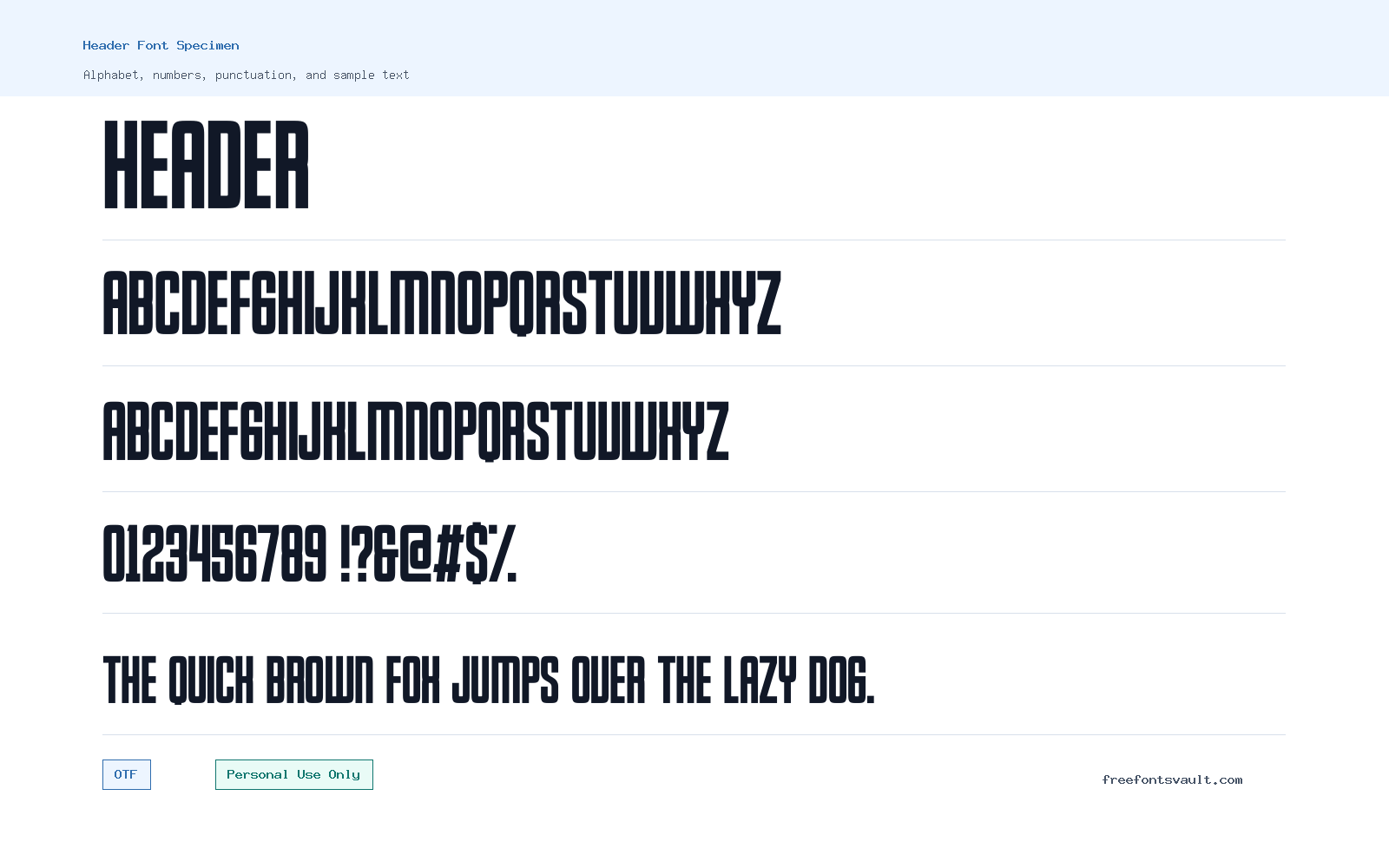
Header
- Designer Muhammad Rizki Utomo
Header font.
Header is a sans serif display font made for short, attention-grabbing text. Its name says exactly where it fits best: titles, headings, poster lines, logo drafts, and other places where the words need to stand apart from body copy.
About Header Font
Because Header is a sans serif and the style is presented around headline use, it is best treated as a display face rather than a long-reading text font. Use the preview box to test the exact words you plan to design with, especially if your project depends on tight spacing, all-caps wording, numbers, punctuation, or a short brand name. Display fonts can look strong in one word and feel crowded in another, so checking your own text is more useful than judging it from a sample alone.
For logo work, Header can be a helpful starting point for personal concept sketches and mood boards. Try it in short names, initials, badge layouts, packaging mockups, and title cards. Keep the wording brief, then adjust tracking and line height if your design tool allows it. A font named and structured for headings will usually have the most impact when the layout gives it room to breathe. If the letters feel too close together, add a little spacing rather than forcing the font into a dense block.
For posters and web mockups, Header works best when paired with a quieter text font. Let Header handle the main title, section label, button word, or short callout, then use a neutral sans serif or readable serif for descriptions, menus, captions, and paragraphs. This keeps the page easy to scan while still giving the main message a clear visual anchor. Avoid using one display style for every line on a page; contrast is what helps a heading feel intentional.
- Sans serif display style suited to headings and short text treatments
- Works well for title text, logo drafts, poster headlines, and web mockup headings
- Best used in short phrases rather than long paragraphs
- Pairs cleanly with simple body fonts that do not compete with the headline
- Personal logo concepts and brand-name experiments
- Poster titles and event-style headline text
- Website hero headings and section labels in mockups
- Social media graphics for non-commercial projects
- Packaging, badge, and label layout drafts
- Short quotes, names, and bold typographic compositions
Use Header where the text is short and important. Test uppercase and lowercase versions, check spacing around punctuation, and compare it at the actual size you plan to use. For readable layouts, pair it with a plain body font and reserve Header for the main visual moments.
What is Header best used for?
Header is best for short display text such as headings, logo drafts, posters, social graphics, title cards, labels, and web mockup hero text.
Is Header good for body text?
It is better suited to headings and short phrases. For paragraphs, pair it with a simpler, highly readable body font.